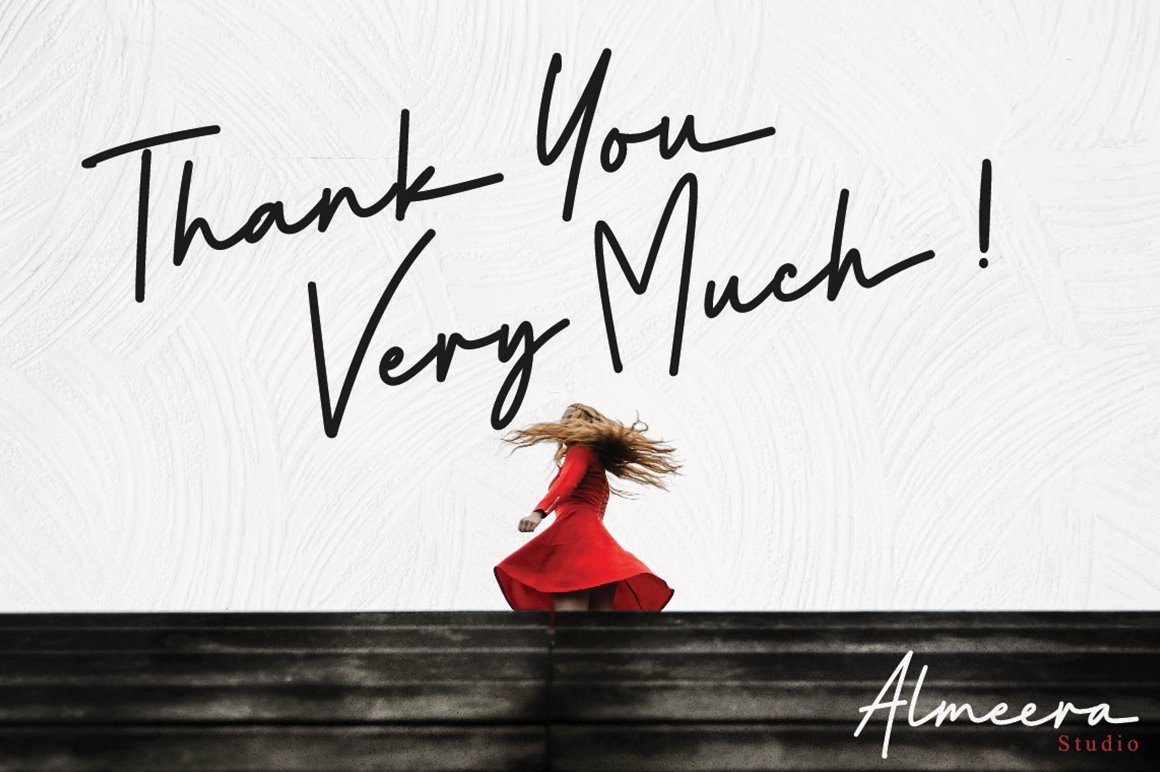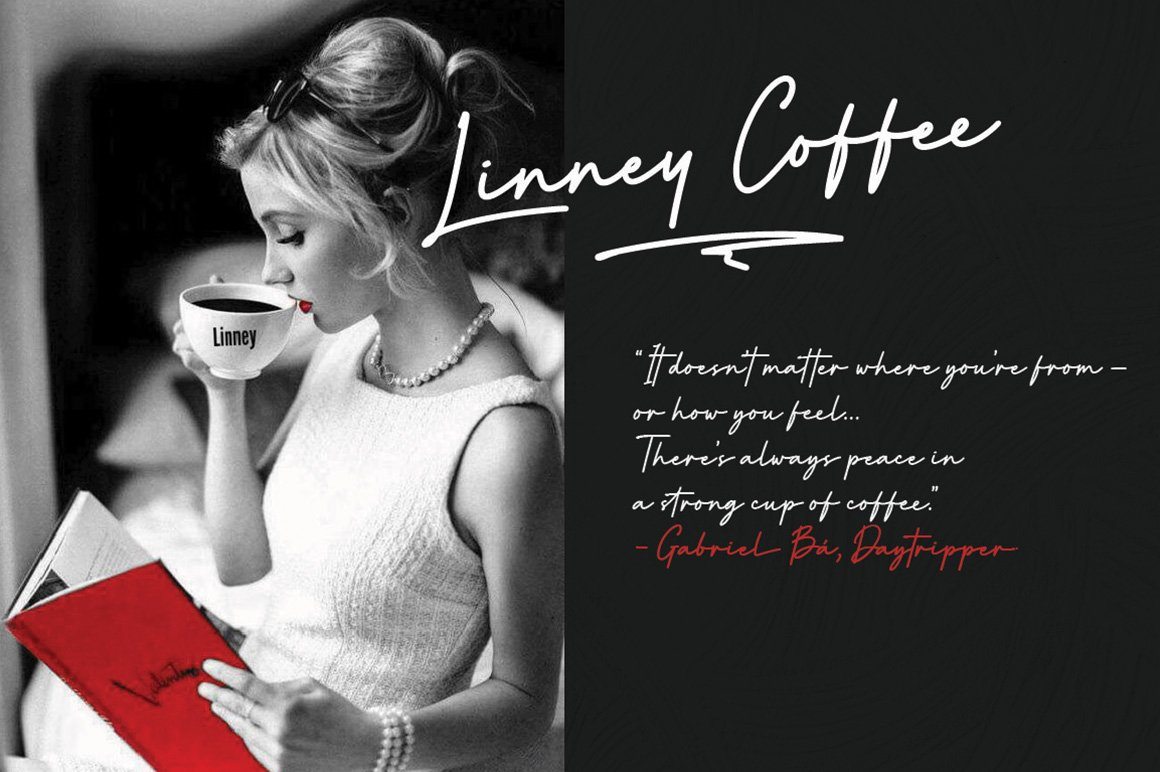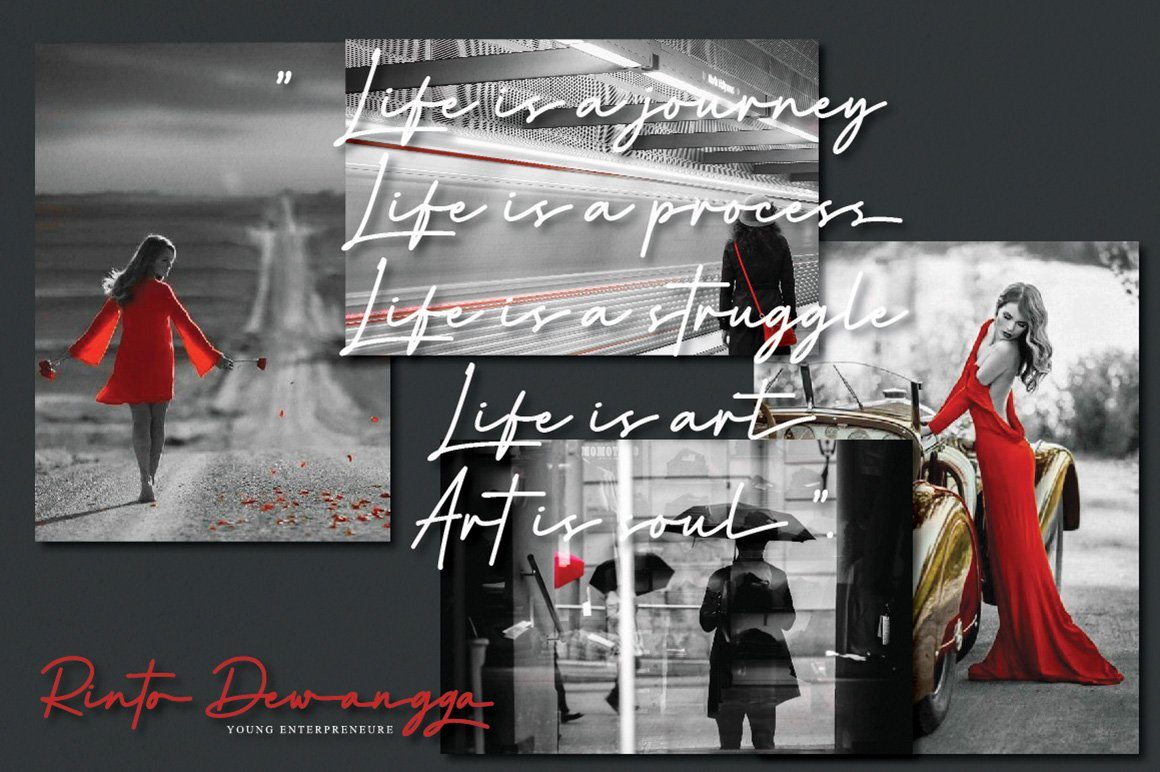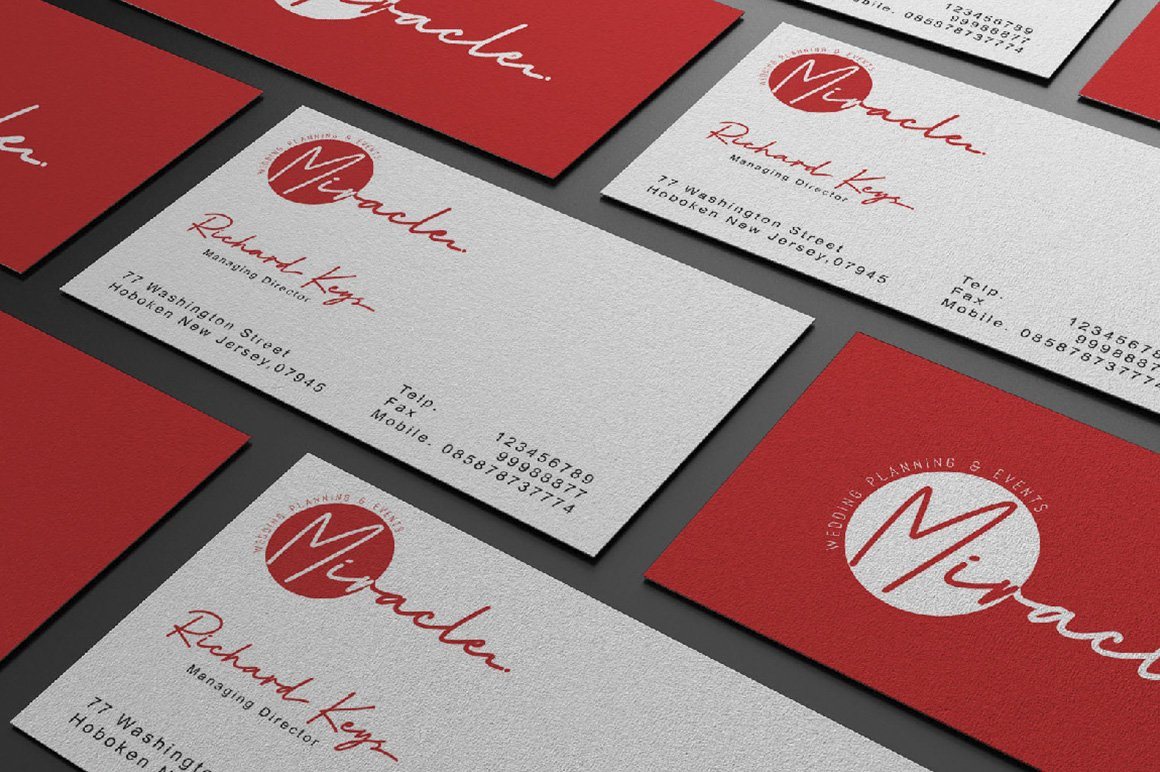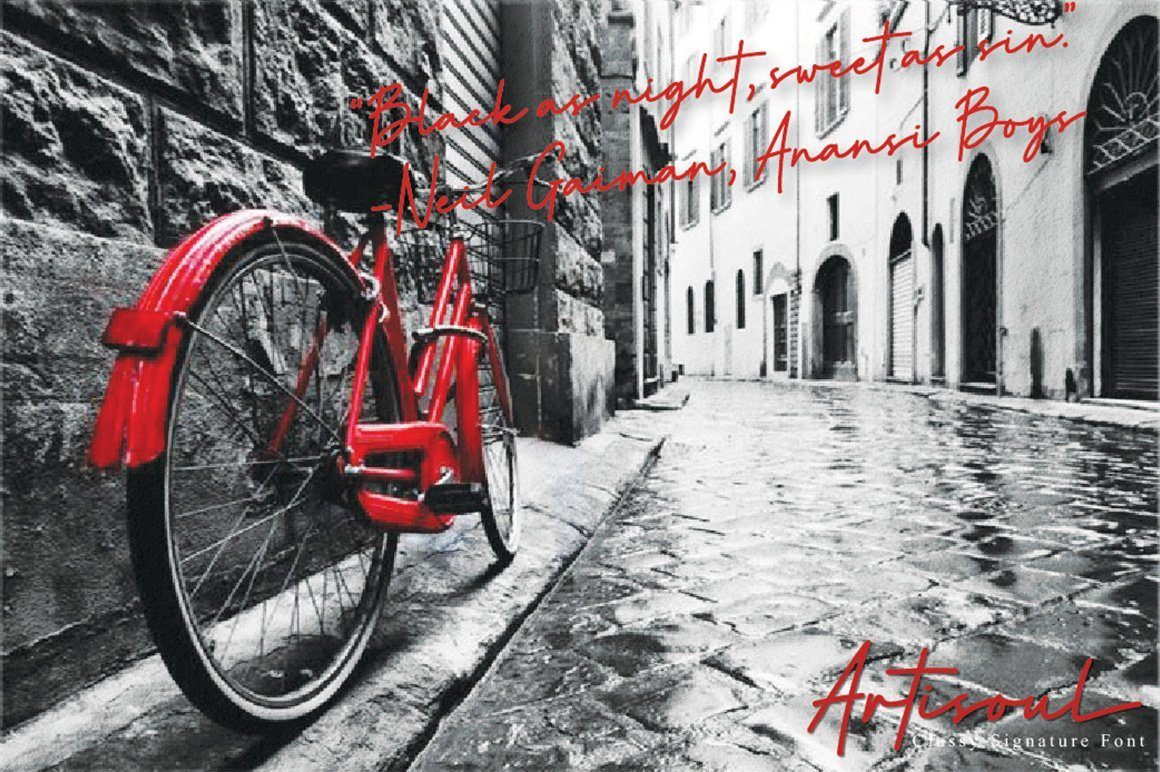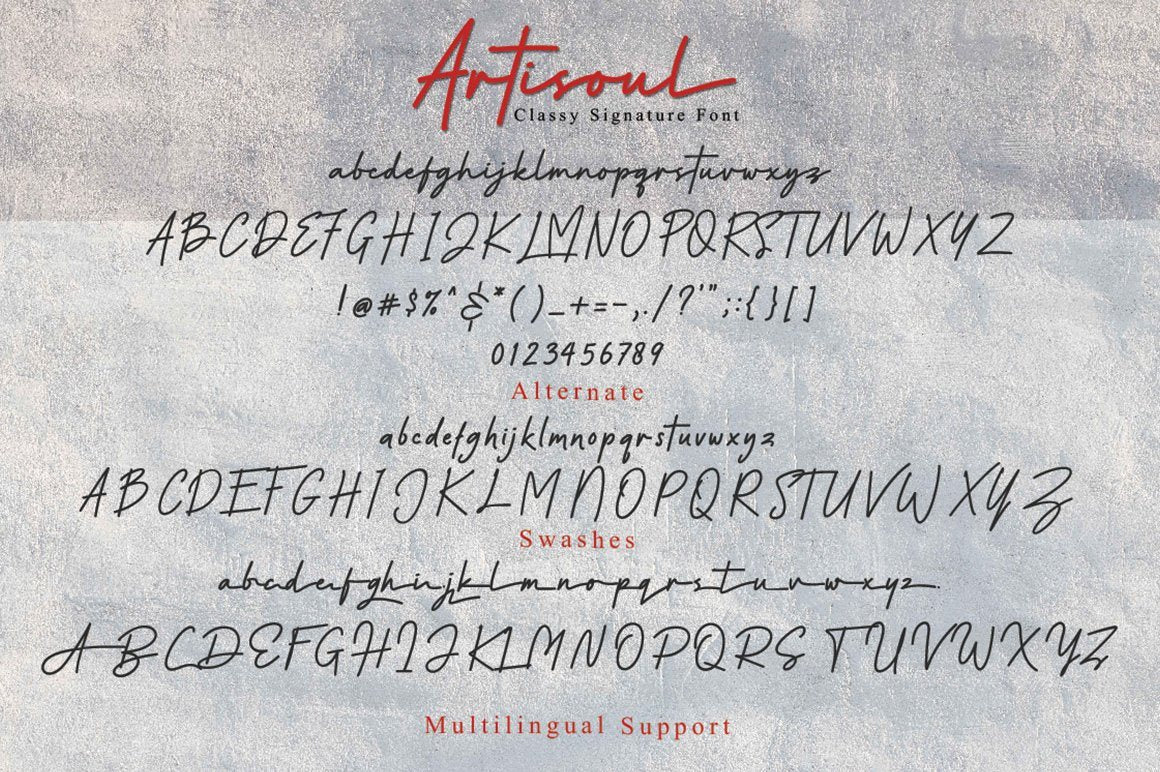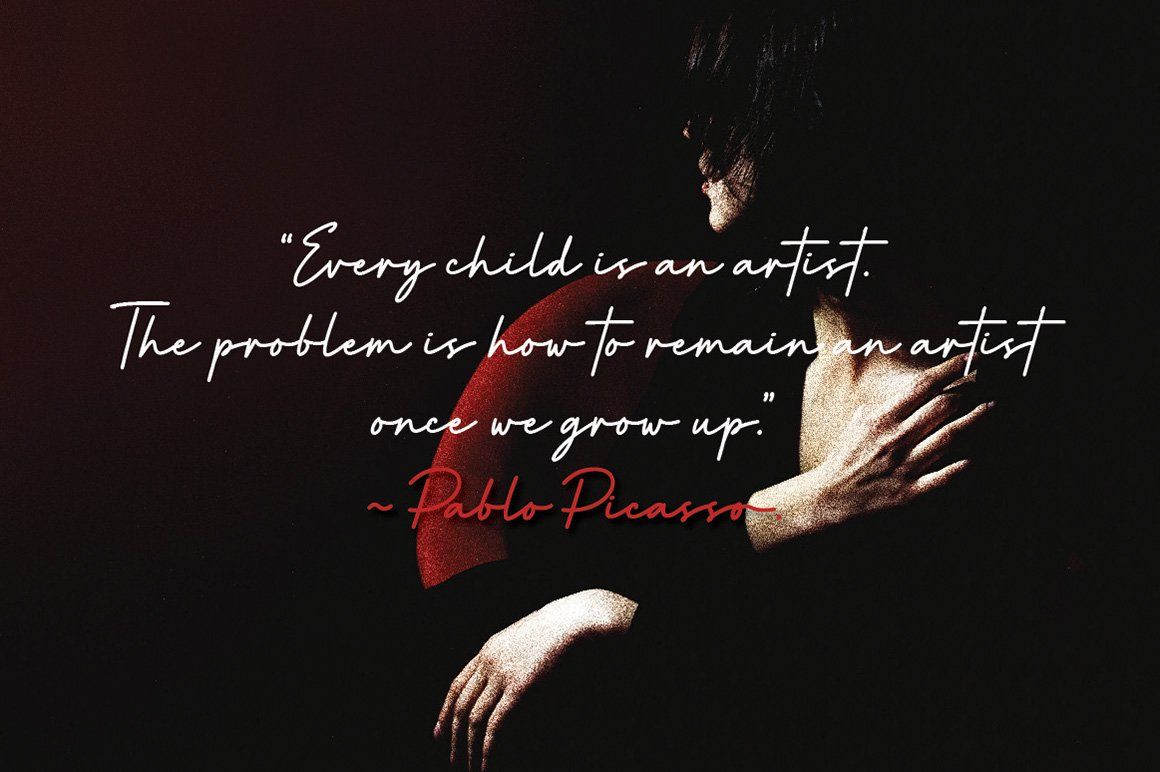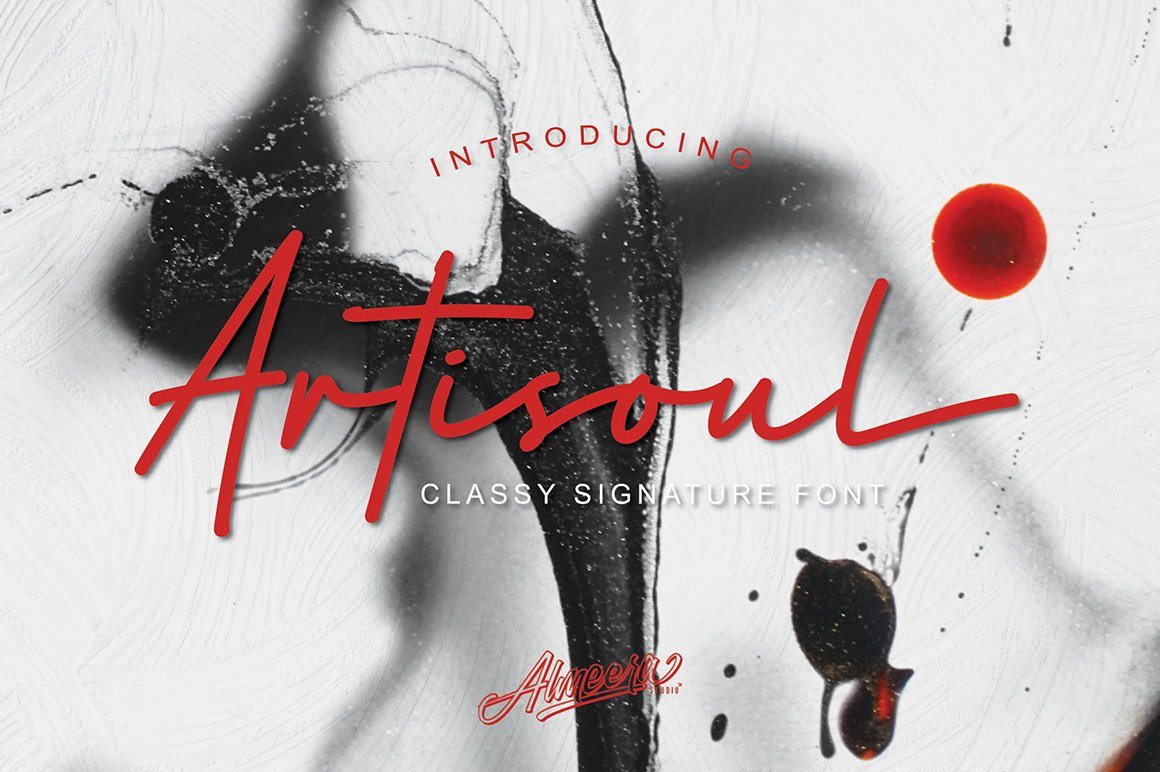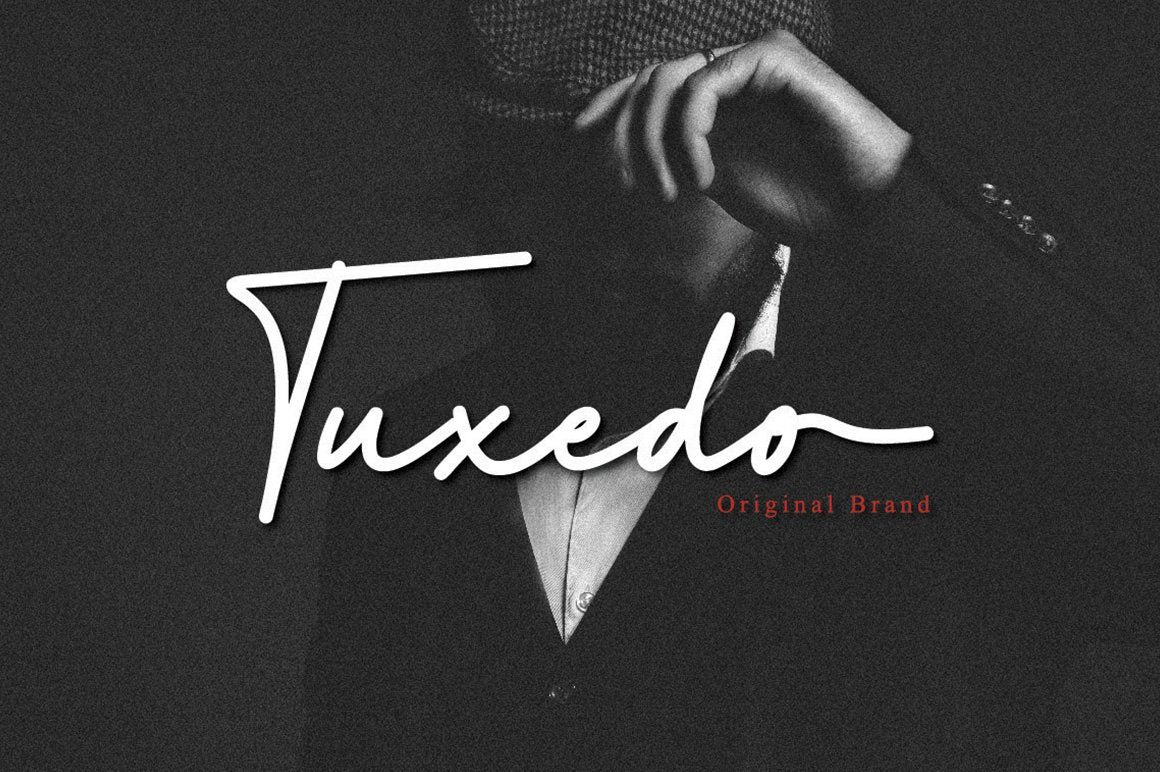
Artisoul Signature
About Artisoul Signature
Artisoul is a handwritten signature script with a classy & natural flow. This collection of scripts is perfect for personal branding.this works well for many applications. Everything from personal branding & wedding invitations to advertising could benefit from this collection of signature fonts.They work well with something like Signature Photographers, cosmetics,watermark, Liquor Labels, Signage, & any type of signature-styled logo. Artisoul is a must-have signature script that has a diverse set of alternates that will surely be used many times over in various projects in the future. Thanks & Happy design.